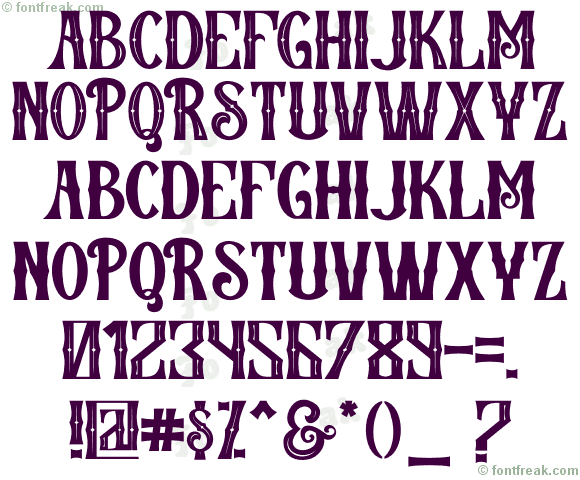
MAGIC CHRISTMAS
About MAGIC CHRISTMAS
The MAGIC CHRISTMAS font by MaknaStudio is a delightful display typeface that captures the enchanting spirit of the holiday season. This decorative font showcases a unique blend of whimsical and festive elements, making it a perfect choice for various seasonal projects. Its bold stroke weight and playful curves create an eye-catching design that stands out, while the thoughtfully spaced letters provide excellent readability. Decorative flourishes and swirls enhance its charm, evoking a sense of joy and wonder associated with Christmas.
Ideal for a wide range of applications, the MAGIC CHRISTMAS font is particularly well-suited for creating captivating holiday greeting cards, festive party invitations, and cheerful gift tags. Its playful aesthetic can also elevate the design of seasonal marketing materials, such as banners or posters, helping small business owners showcase their holiday offerings with flair. Moreover, graphic designers can utilize this font to add a unique touch to social media graphics and online content, ensuring their work resonates with audiences during the festive season.
The target audience for the MAGIC CHRISTMAS font includes graphic designers, small business owners, and content creators who seek to infuse their projects with a joyful and festive spirit. Whether it’s for personal or commercial use, this font brings a touch of magic to any design.
What sets the MAGIC CHRISTMAS font apart is its ability to evoke nostalgia while remaining versatile enough for modern applications. The combination of its playful design and festive characteristics makes it an ideal choice for anyone looking to create memorable holiday-themed projects. For those interested, the MAGIC CHRISTMAS font free download allows designers to incorporate this enchanting typeface into their work without any cost, making it an accessible option for all.